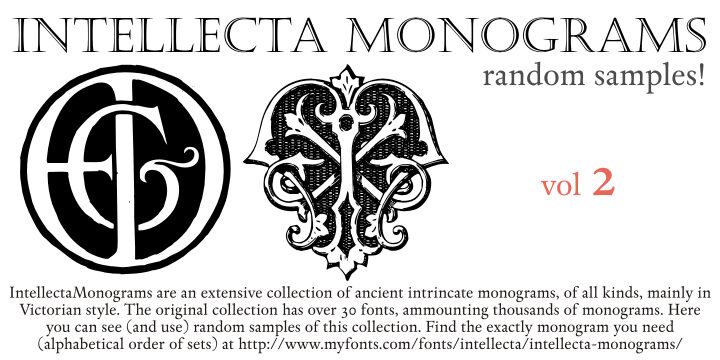
Intellecta Monograms Random Samples Two by Paulo W. is a free Gothic initials font of elaborate interlocking letterforms. Ornate curls, pierced strokes, and blackletter details make each monogram resemble an engraved crest. Some forms are compact roundels, others tall symmetrical emblems.
Heraldry and historic ornament make it apt for family-history projects, ceremonial invitations, and heritage branding. It also suits packaging and event programs. In editorial design, the initials can become chapter ornaments or illustrated section badges.
Intellecta Design created Intellecta Monograms Random Samples Two.
Intellecta Monograms Random Samples Two is a random, limited set from Intellecta Monograms, a collection containing thousands of monograms.